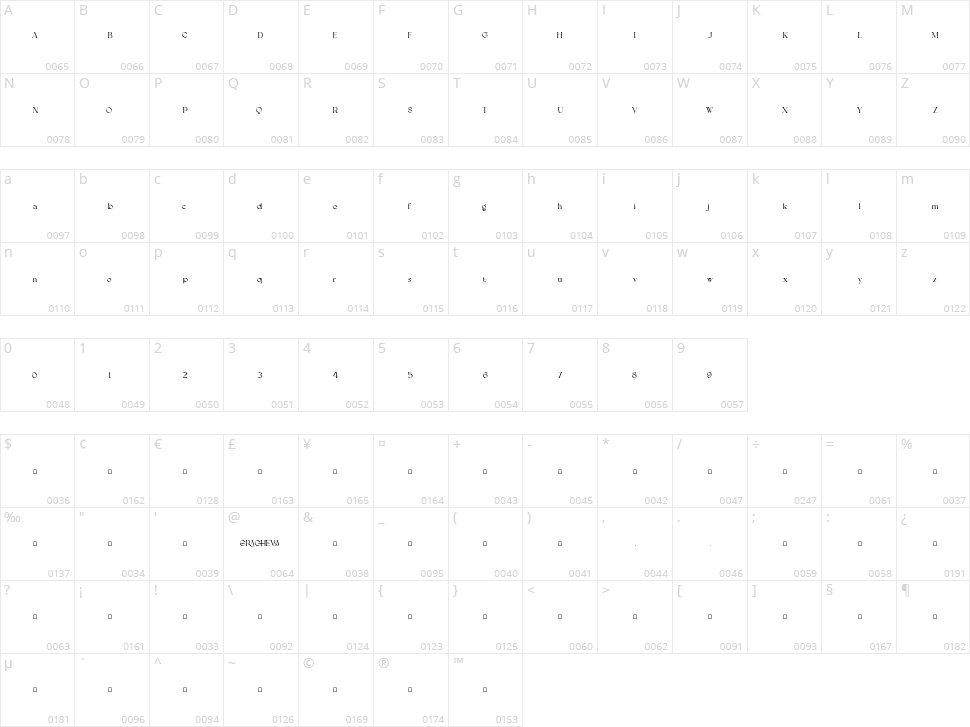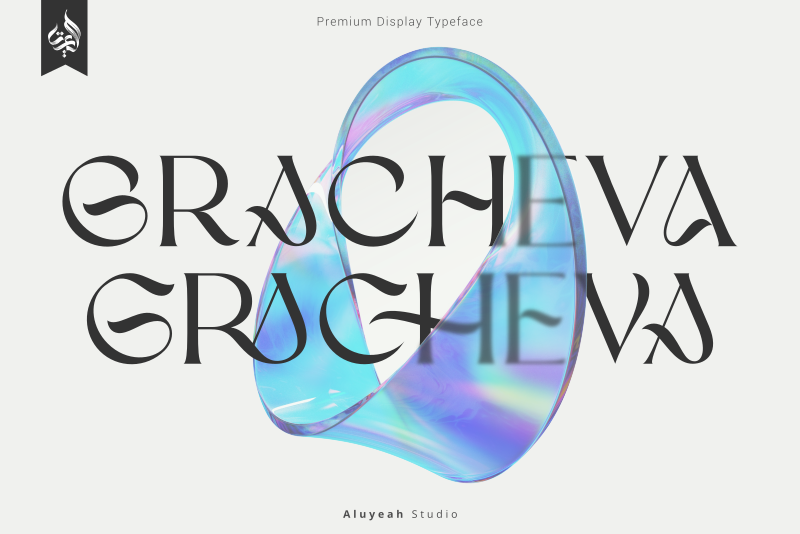
Gracheva
To get results like the preview just type G.3R.AC.HE.2V.2A.4
Coming with 130+ stunning and super easy to use alternates and ligatures.
Very suitable for apps, magazine, headline, website, ads, product package and all type of design project you have.